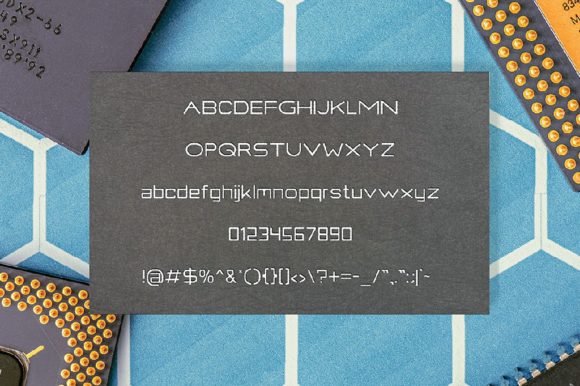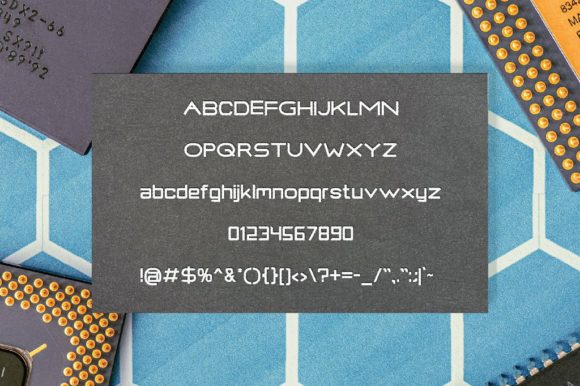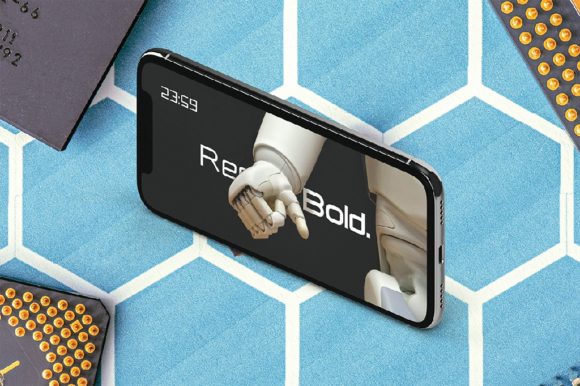
Hartono Font: Elevate Your Design with a Futuristic Twist
Hartono is an amazing tech font with a futuristic feel. It will add a smart and sleek feel to any design project! In the realm of typography, fonts play a pivotal role in shaping the visual identity of a project. Whether you’re a designer, a crafter, or simply someone who appreciates the nuances of aesthetic appeal, the Hartono font is a game-changer. This article aims to explore the intricacies of the Hartono font, its features, and how it can elevate your design projects to new heights.
What is Hartono Font?
The Hartono font is a modern, tech-inspired typeface designed to infuse a sense of futurism and sophistication into any design. Its sleek lines, balanced proportions, and futuristic vibe make it an ideal choice for projects that demand a cutting-edge look. From digital interfaces to print materials, Hartono can seamlessly integrate into various mediums, ensuring your design communicates a sense of innovation and forward-thinking.
Key Features of Hartono Font
- Unique Futuristic Design: Hartono boasts a distinctive, futuristic aesthetic that sets it apart from more traditional fonts. Its design elements are carefully crafted to evoke a sense of technology and modernity.
- Versatility: This font is incredibly versatile, suitable for a wide range of applications, from tech startups and digital gadgets to futuristic event branding and beyond.
- Readability: Despite its futuristic look, Hartono doesn’t compromise on readability. It’s designed to be clear and legible, making it perfect for both headings and body text.
- Customizability: The Hartono font can be easily customized to fit your project’s specific needs. Whether you’re adjusting the weight, size, or color, it adapts well to various design requirements.
Applications of Hartono Font
The applications of the Hartono font are vast and varied. Here are a few examples of where it can make a significant impact:
- Digital Products: For UI/UX designers, Hartono can enhance the user experience of apps, websites, and software by providing a sleek and modern typography solution.
- Branding and Marketing: Companies looking to rebrand or launch a new product with a futuristic or tech-savvy image can leverage Hartono to communicate their message effectively.
- Print Design: Beyond digital applications, Hartono can also be used in print design, such as in brochures, posters, and business cards, to add a contemporary touch.
- Art and Craft Projects: Crafters and artists can use Hartono to add a professional and modern element to their work, whether it’s for titles, captions, or standalone text pieces.
Tips for Using Hartono Font Effectively
To maximize the impact of the Hartono font in your designs, consider the following tips:
- Mix and Match: Experiment with different weights and sizes of Hartono to create visual hierarchy and add depth to your design.
- Color Selection: Choose colors that complement the futuristic feel of Hartono. Monochromatic schemes or bold, contrasting colors can enhance its modern appeal.
- Pairing with Other Fonts: While Hartono is versatile on its own, pairing it with complementary fonts can add variety and interest to your design. Opt for fonts that share a similar futuristic or minimalist vibe.
The Hartono font is a powerful tool for designers and crafters looking to infuse their projects with a futuristic and tech-savvy aesthetic. Its unique design, versatility, and readability make it an excellent choice for a wide range of applications. By incorporating Hartono into your design repertoire and applying it thoughtfully, you can elevate your work and make a lasting impression on your audience.